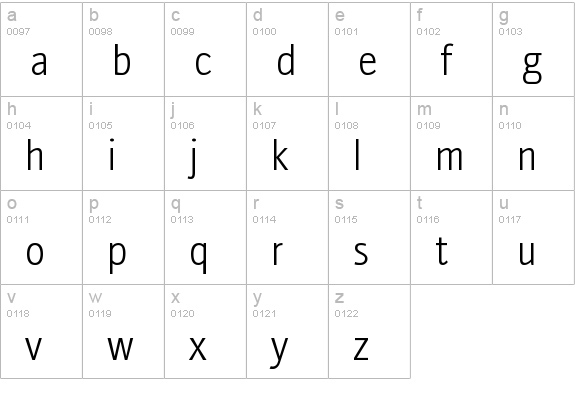
Doradani Lt font is a modern and elegant typeface that exudes sophistication and style. Its sleek lines and delicate curves make it perfect for a wide range of design projects, from branding to editorial layouts. The versatility of Doradani Lt font allows it to be used in both digital and print applications, giving your designs a polished and professional look. Best of all, Doradani Lt font is completely free to download at FontsMarket.com. This means that you can elevate your projects with this stunning typeface without having to worry about breaking the bank. Whether you're a seasoned designer looking to add a fresh touch to your work or a novice designer just starting out, Doradani Lt font is the ideal choice for bringing your creative vision to life. Download it today and see the difference it can make in your designs!